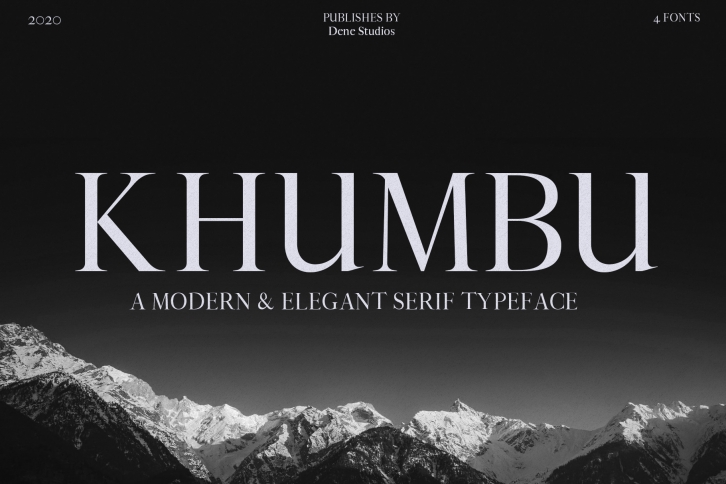
Khumbu is a cool, bold and tall serif font. No matter the topic, this font will be an incredibly asset to your fonts’ library, as it has the potential to elevate any creation.